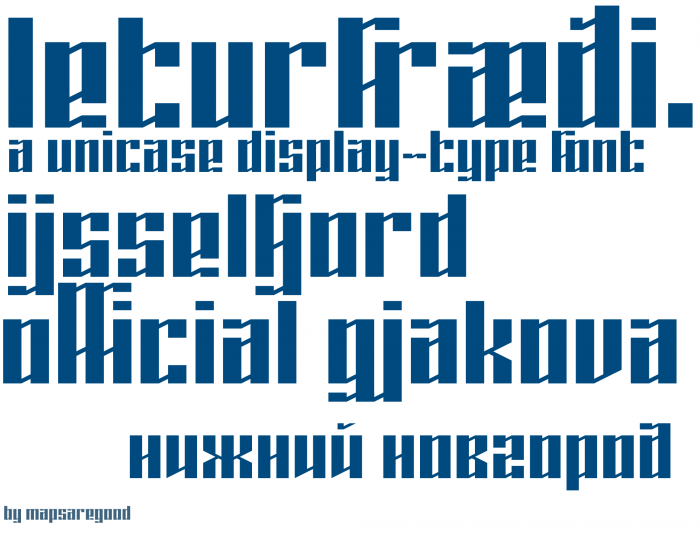
Leturfræði
An angular font with built-in ligatures for <f> and <j>. More punctuation and international support (hopefully) coming soon.
EDIT: ...and the sample has me using the wrong form of F and J in two places. Ah well, you can't win everything.
Looks good... why does the Cyrillic и (if that's и) have such a sharp edge? i think it could be the same as Latin u. What do you think about this?
My first try at и was identical to Latin u, but I thought the bar could be moved higher up to make it more... и-y? ¯\_(ツ)_/¯
The sharp edge is a result of wanting contrast with н.\
now that i think about it i probably could've just made it identical and noöne would have noticed
i guess cyrillic и is like between u and reversed N
actually i think the и is great now :)
I think the + and - doesn't have to be that fancy
I'm curious about the font's name :) Where did it come from?
Leturfræði is the Icelandic word for typography. I figured the name, having non-English characters, would fit the font's (somewhat) goal of supporting several languages while still keeping internal consistency.
Now with IPA (and Greek) support!